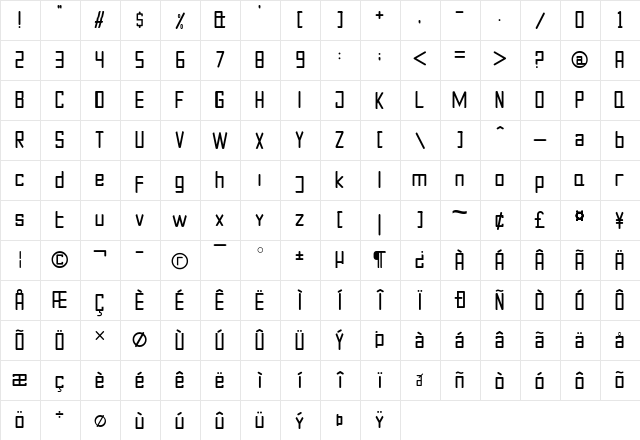
Javanese Neu Regular
| Designer | Artspace 2018 |
Design Context for Javanese Neu Typeface
Javanese Neu offers clean, dependable letterforms without strong stylistic allegiance, making it a practical choice for designers who need flexibility.